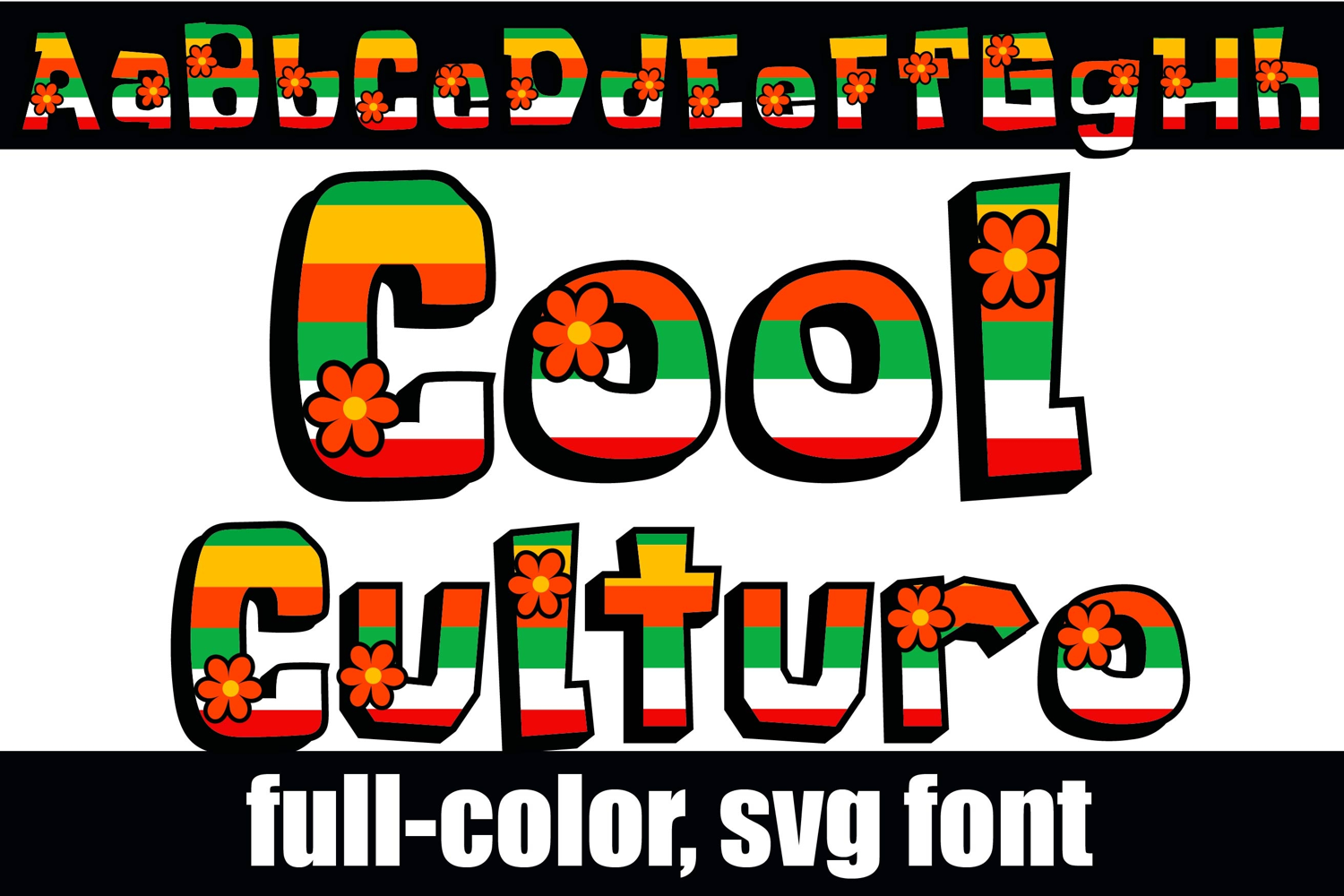
Cool Culturo Color Font
This full-color, font is a blocky sans serif with the colors of Mexico and dahlia flowers. There is an alt case of additional colors of each letter that you can access through your system's character map.